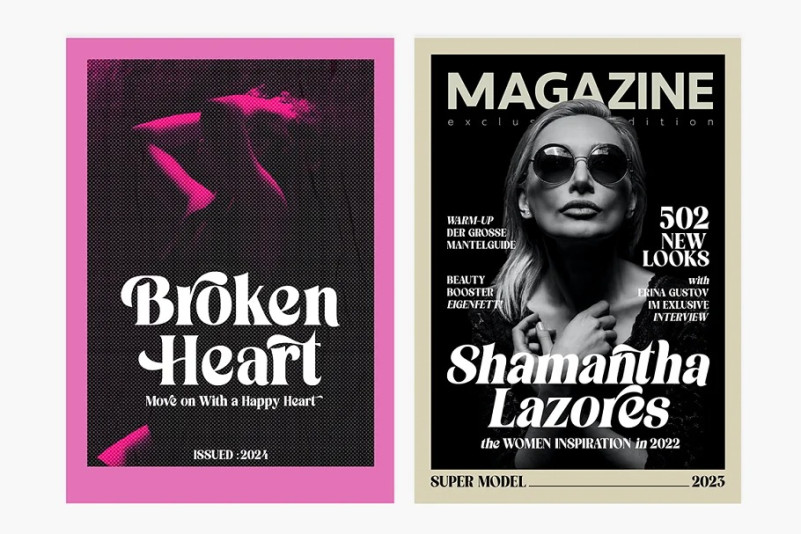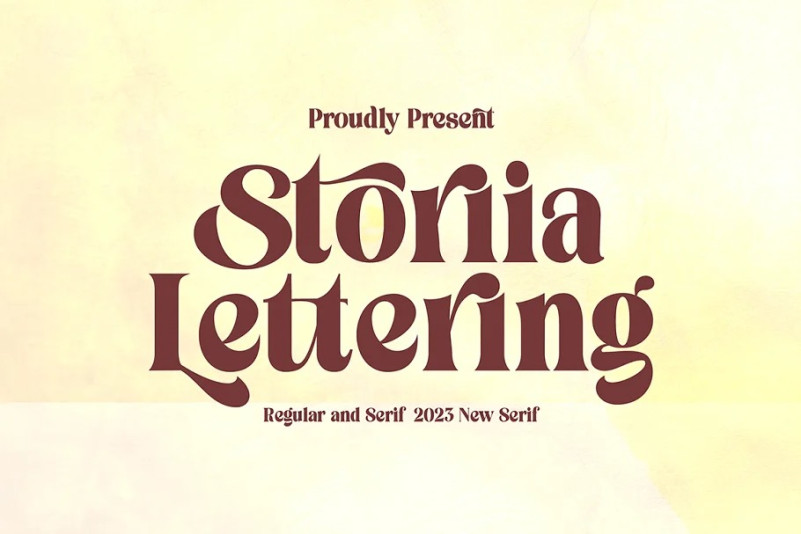
Storia Lettering Font
Hello Everyone, introduce our new product, Storia Lettering Serif Font, is absolutely perfect for editorial headings. The full font type upright and italic makes it easy for you to use the 2 styles in many projects. This font is complete with symbols and is multilingual. This font style is bold, bold, and sleek, featuring Swash,n Ligature and Stylistic Alt & Stylistic Set features. making it perfect for editorial, web, posters, t-shirts and magazine covers. . etc.